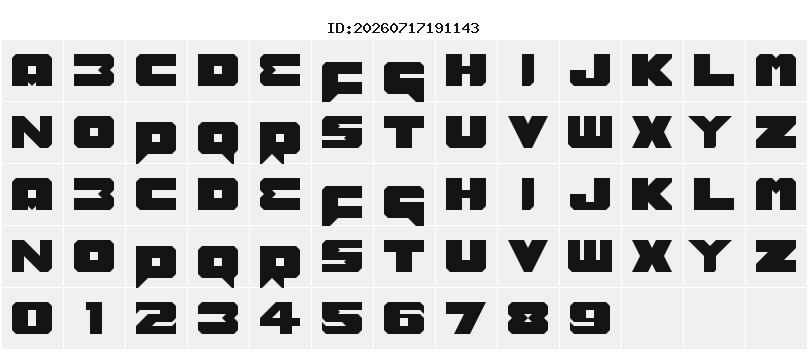
• Font Name: Benny Benassi Font Remake
• Designer: InHuman
• Description: ‚ÄúBenny Bennasi Font Remake‚Äù was built with FontStruct
About Benny Benassi Font Remake.ttf
Benny Benassi Font Remake.ttf is a modern, elegant sans-serif font designed for ultimate readability and visual harmony. Perfect for branding, headlines, web design, and print materials.